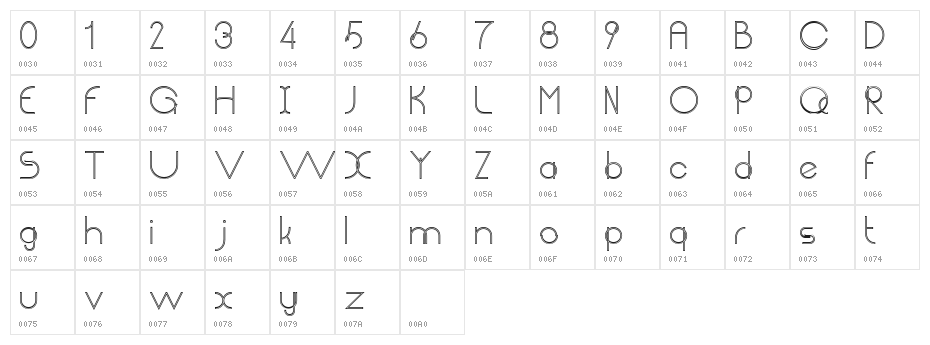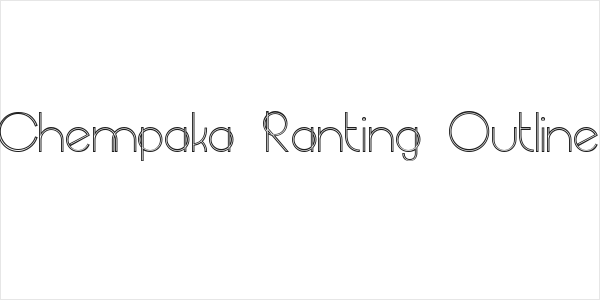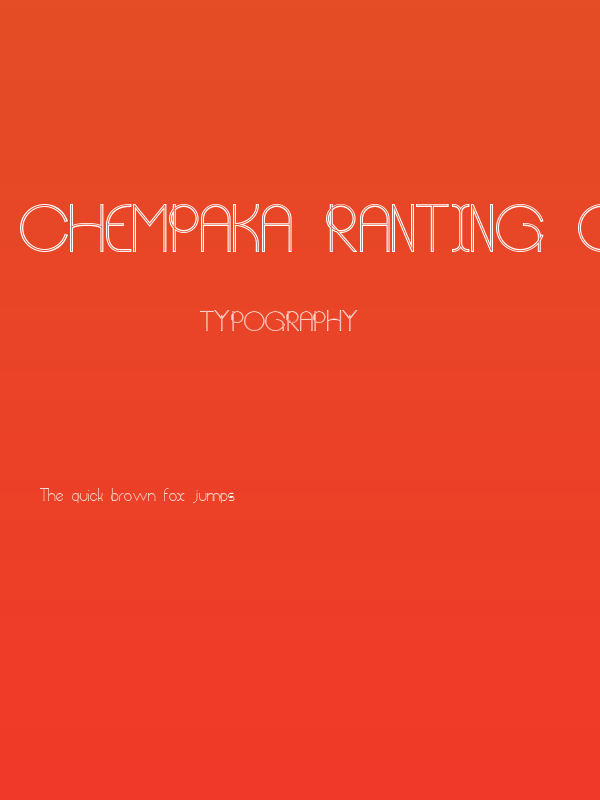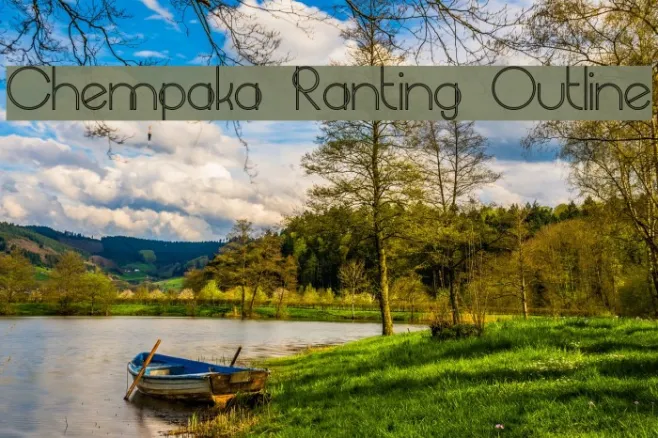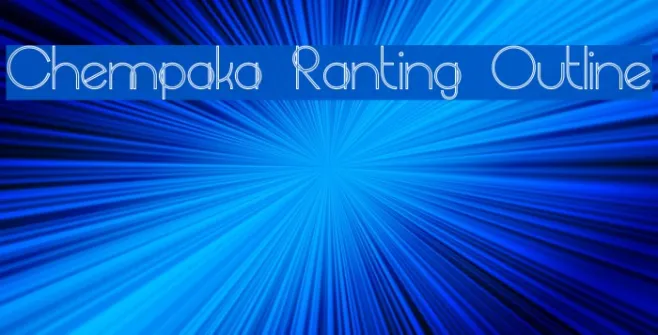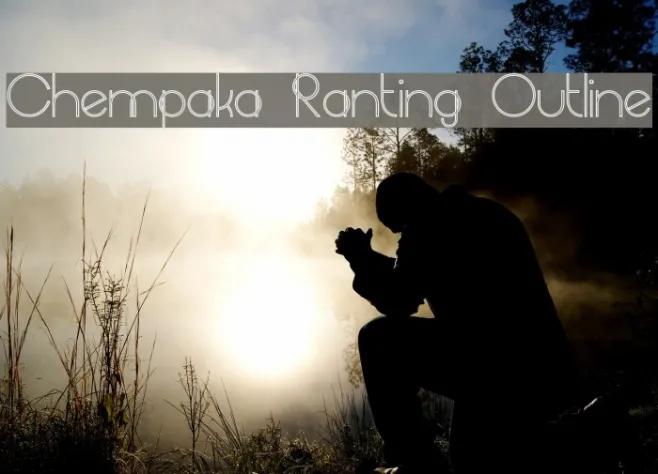
Chempaka Ranting Outline Font
Chempaka Ranting Outline Description
This font features a distinct outline style with a modern and geometric aesthetic. The characters are constructed with clean, continuous lines that form the outer edges, giving it an open and airy appearance. The uppercase and lowercase letters maintain a consistent height and width, creating a harmonious and balanced look. The numerals are equally stylized, matching the overall design with their sleek and minimalistic form. This font's unique outline design makes it stand out, offering a contemporary twist on traditional letterforms.
| Proposed Projects | Ideal for branding, posters, and modern design projects where a unique and stylish font is needed. |